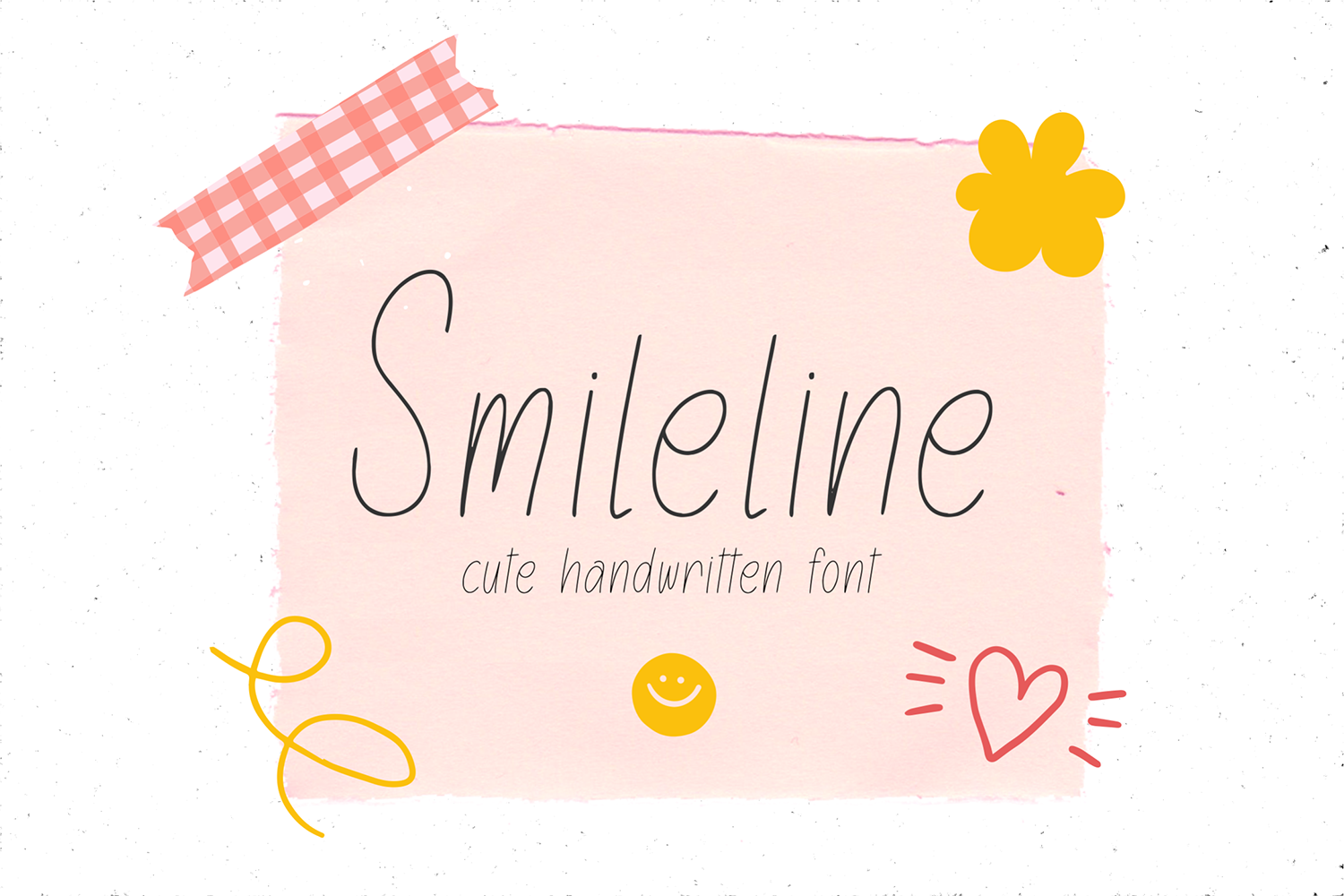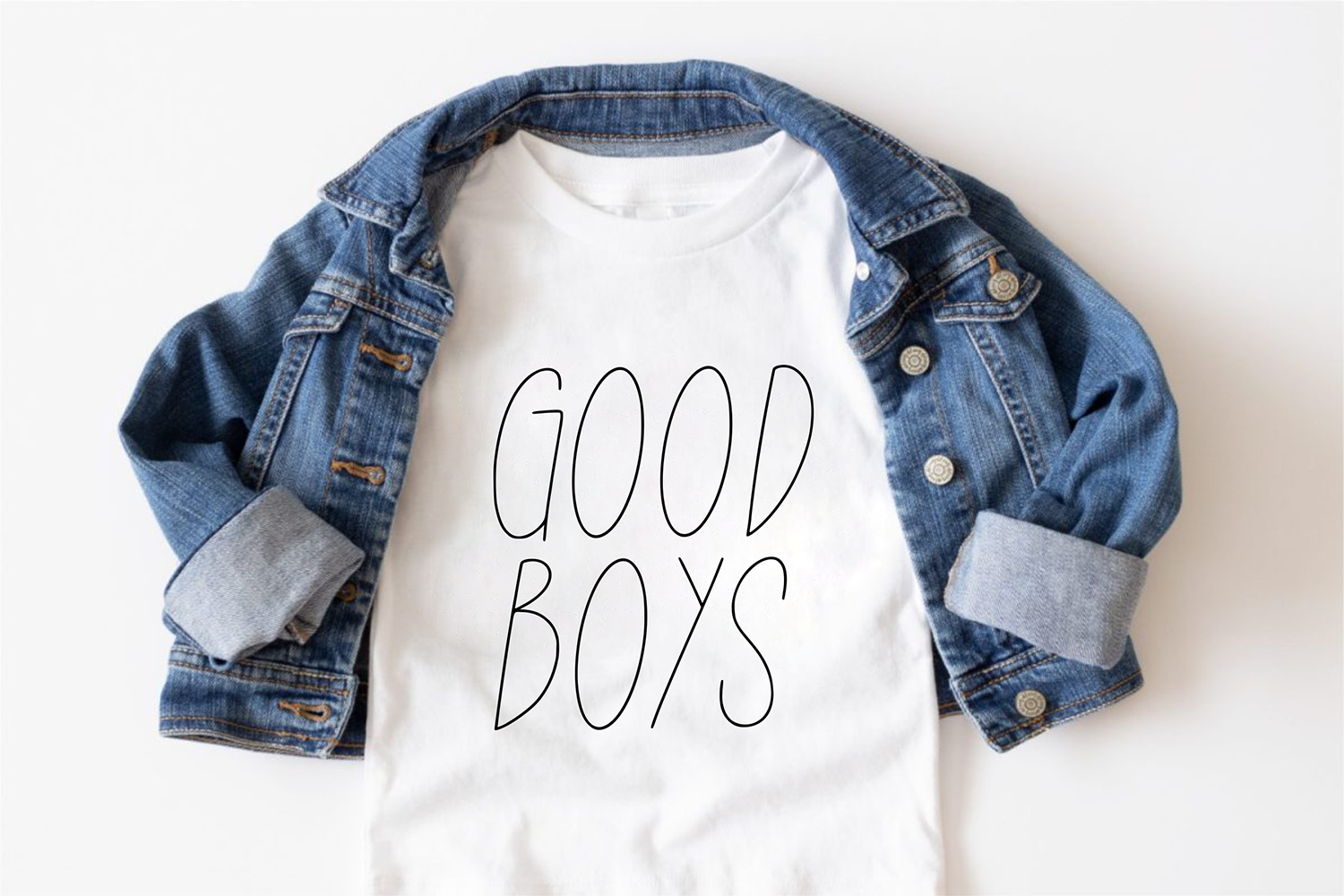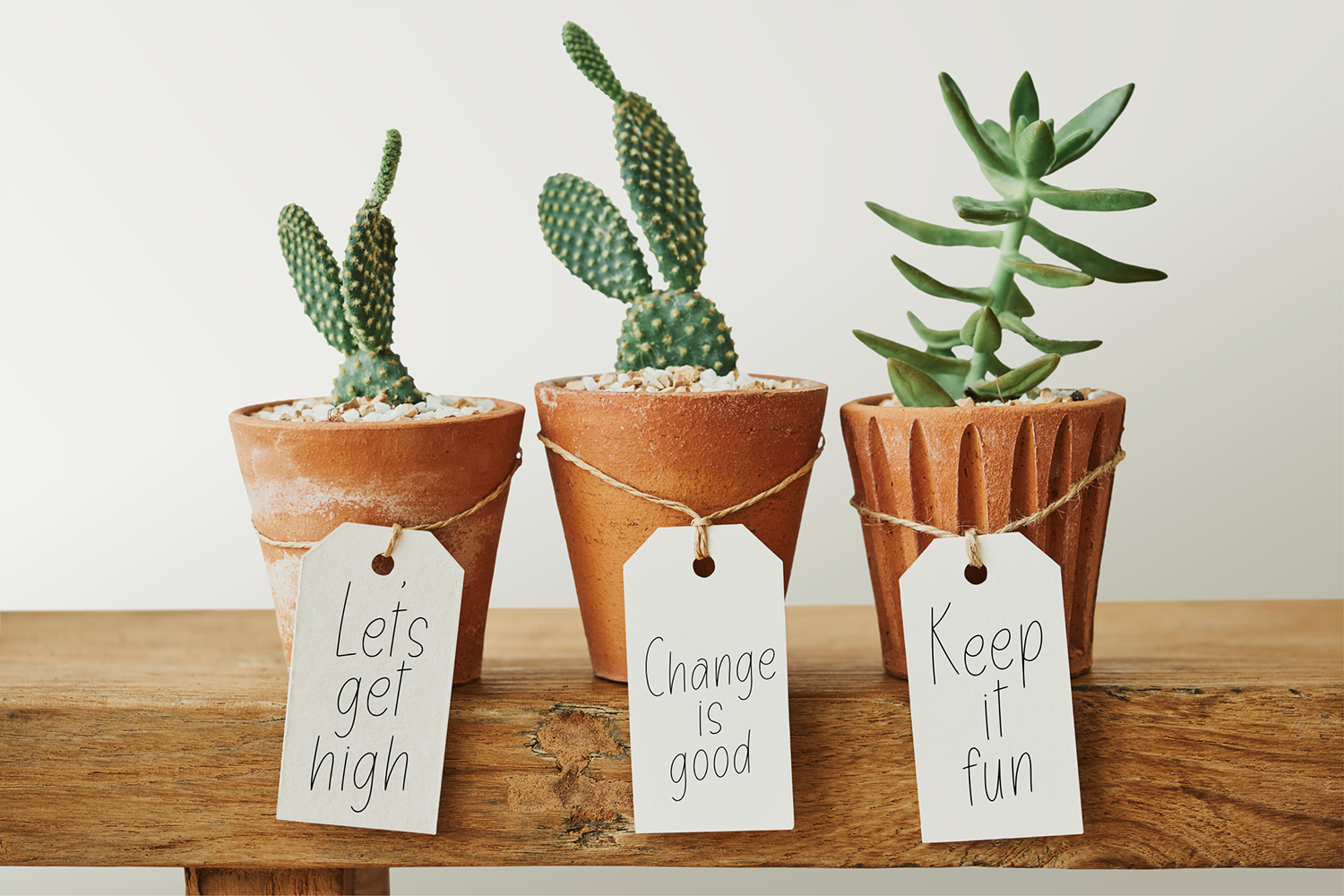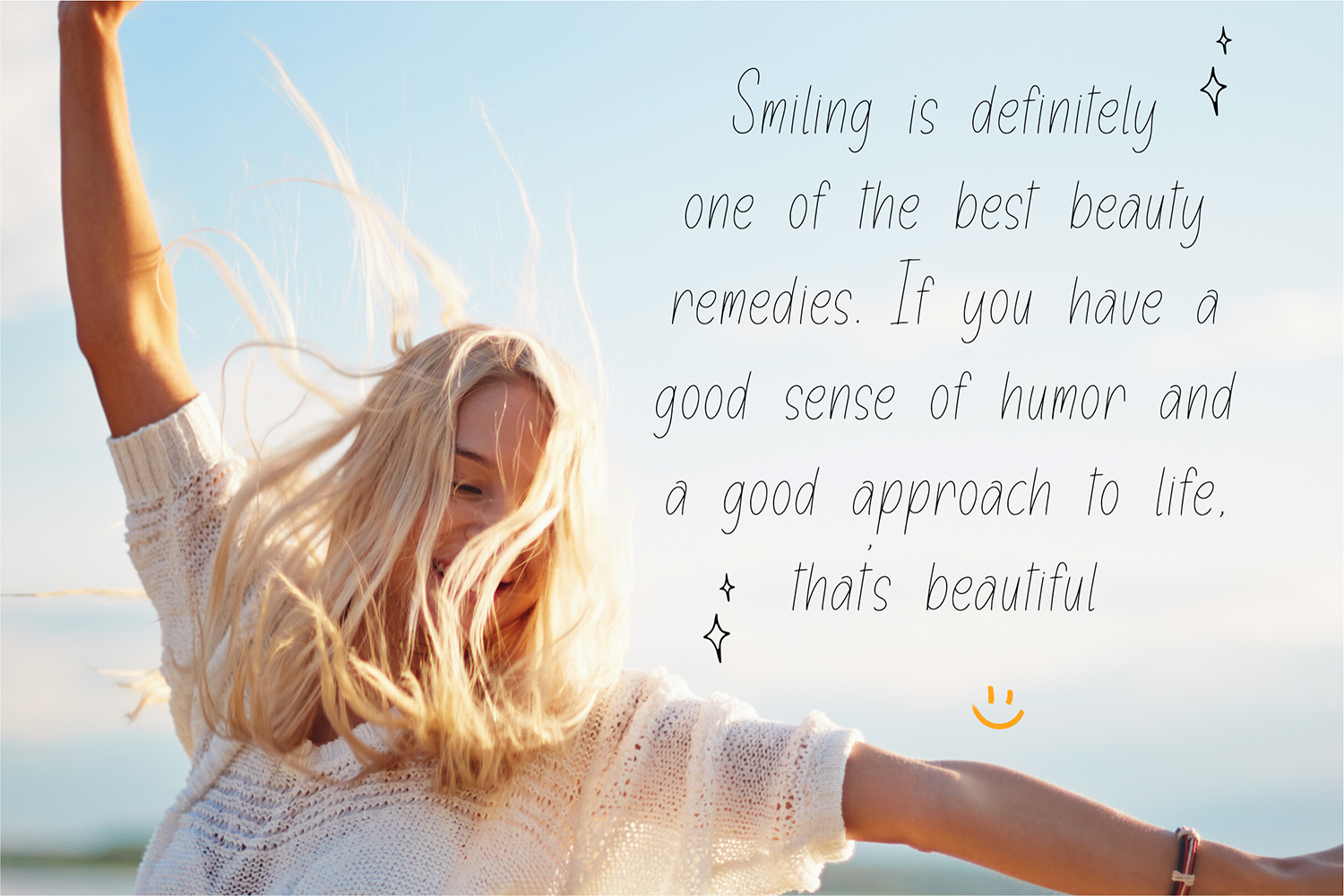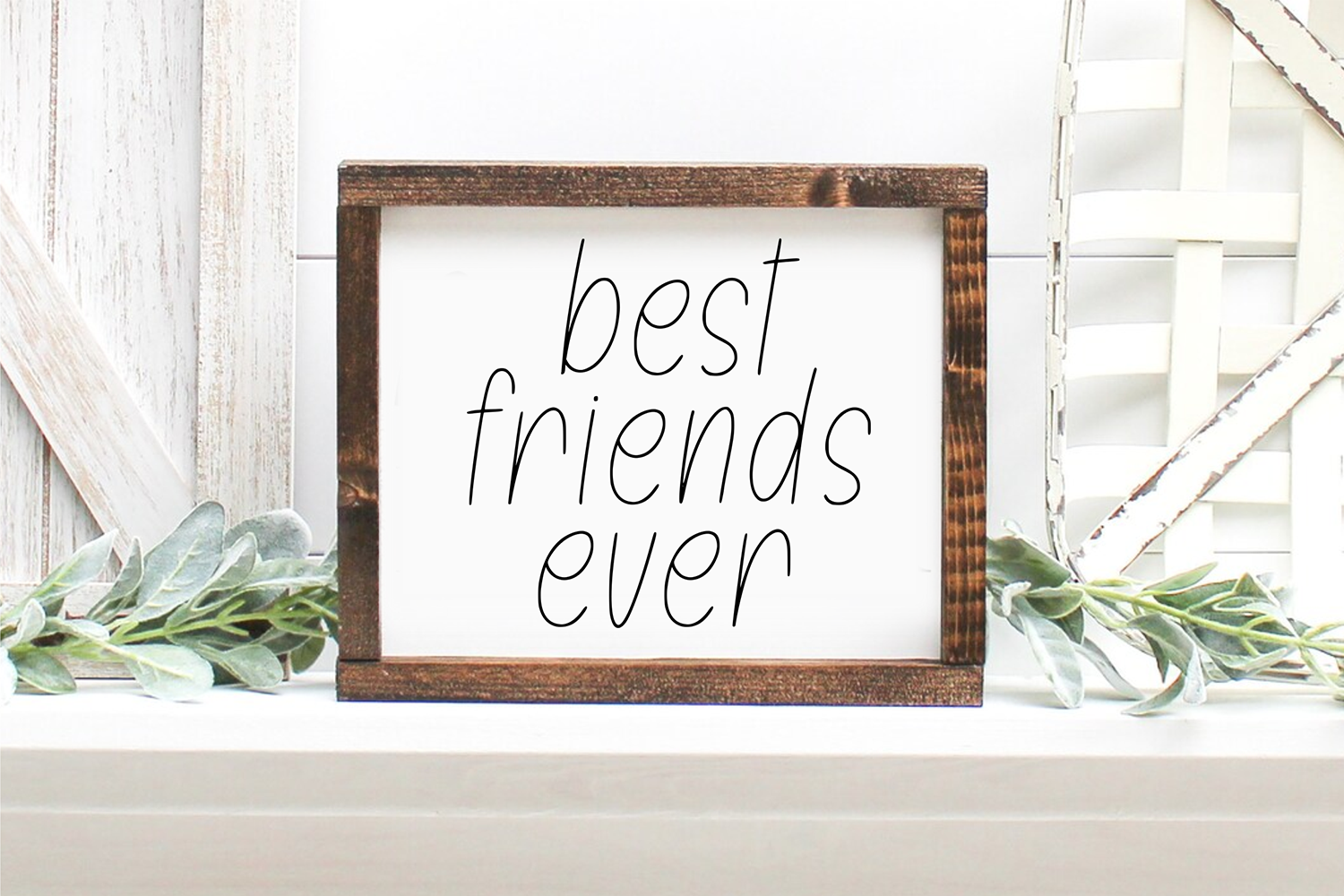
Smileline Free Font
Smileline Free Font is an adorable handwritten font that exudes charm and playfulness. This font is a perfect choice for various applications, including product packaging, branding projects, magazines, social media posts, weddings, or simply adding expressive words above any background. Infuse your designs with life by incorporating Smileline into your creative ventures. Watch as your creations are brought to life with its whimsical appeal. Embrace the cuteness of Smileline and let your designs radiate with joy and positivity. This free typeface was designed by a talented Arterfak Project. If you like it don’t forget to check out the full version.